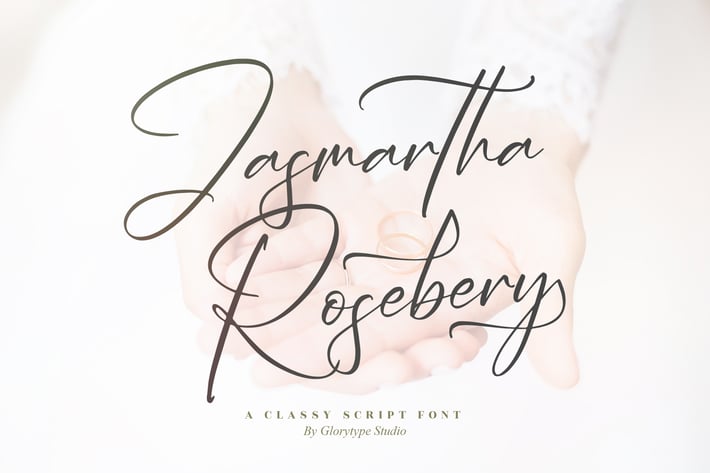
Jasmartha Rosebery Classy Script Font
Jasmartha Rosebery is a refined and graceful script font that radiates elegance and timeless beauty. With its delicate letterforms and effortless flow, this typeface adds a touch of sophistication to any design — perfect for conveying romance, class, and modern charm in every word.
Modern classy script with elegant ligatures
Smooth curves and natural handwritten flow
Includes Regular and Italic styles
Wedding invitations and stationery suites
Branding and fashion editorials
Social media quotes and lifestyle content
Product packaging and photography branding
* Elegant posters and greeting cards
Where elegance meets emotion — Jasmartha Rosebery brings a luxurious handwritten touch to every project.